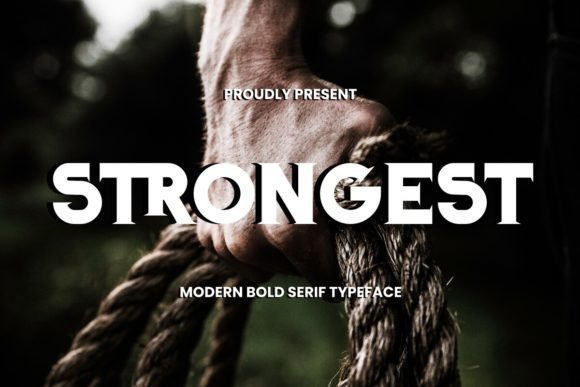
Introducing The Strongest, an iconic serif font for your bold ideas. Its daring strokes and confident curves will inject a raw energy into your designs, be it shirts, headlines, mugs, or even hats. The Strongest is not just a font; it's a statement of courage and strength.
Visualize your words becoming a force to be reckoned with, capturing attention and leaving an unforgettable mark. The Strongest's retro vibes will add a timeless touch to your creations, transcending trends and staying relevant for years to come.
The Strongest is the ultimate choice for those who dare to stand out and make a statement. Its rugged charm will elevate your designs, giving them the power to resonate with your audience on a deeper level. Embrace the strength of this captivating font and unleash your creativity like never before!